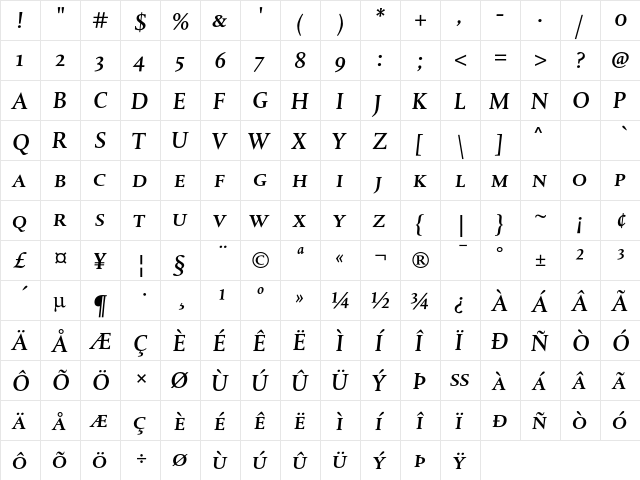
DTLAlbertinaTCaps MediumItalic
Design Context for DTLAlbertinaTCaps Typeface
DTLAlbertinaTCaps takes a measured approach to typography — its balanced proportions and neutral character make it a reliable workhorse for both digital and print work. The dynamic lean of this cut emphasises speed and emphasis in any layout.
Pro Tip: Try DTLAlbertinaTCaps for annotation and caption copy alongside an upright companion — the contrast in angle creates a dynamic but ordered typographic system.